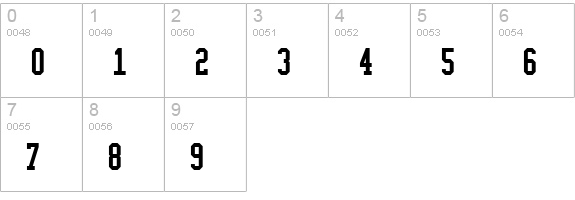
College Condensed is a distinctive, condensed-width variant in the College typeface family \xE2\x80\x94 well suited to design and typography projects.
College Condensed is a sleek and stylish font that exudes a sense of sophistication and modernity. Its clean lines and sharp edges make it perfect for creating eye-catching designs that demand attention. Whether you're designing a logo, a poster, or a website, College Condensed is sure to make a lasting impression. This versatile font is suitable for a wide range of applications, from sports team logos to academic publications. Its condensed nature allows for maximum impact, as it takes up less space while still delivering a powerful message. The bold and commanding appearance of College Condensed ensures that your message will be heard loud and clear. What sets College Condensed apart is not only its exceptional design, but also the fact that it is free. Yes, you read that right - this incredible font is freely available to download at FontsMarket.com. So, you can enhance your designs without breaking the bank. With College Condensed, you have the freedom to let your creativity run wild. Experiment with different sizes, colors, and styles to create unique and captivating visuals. This font is sure to elevate your designs to new heights and make them stand out from the crowd. So, why wait? Download College Condensed today from FontsMarket.com and unlock the potential of this amazing font. Whether you're a professional designer or a hobbyist, this font is a must-have in your collection. Don't miss out on the opportunity to enhance your designs with this exceptional font - get it for free now and start creating captivating visuals that leave a lasting impression.